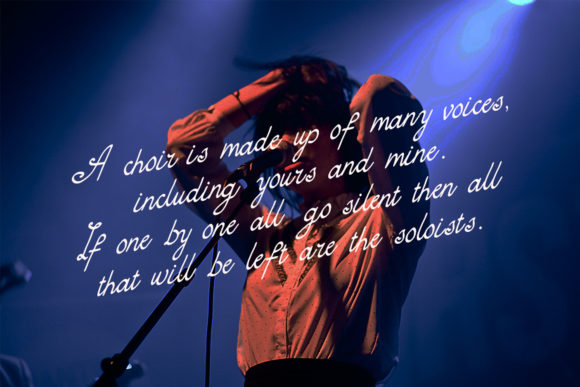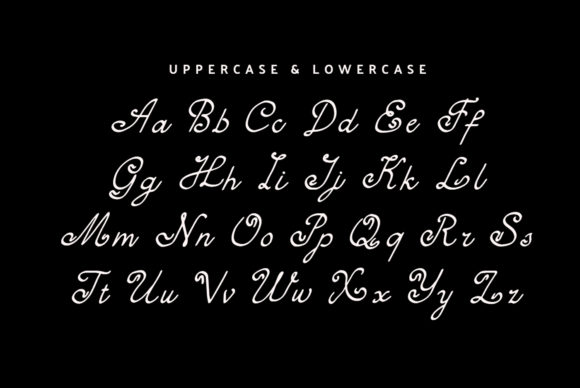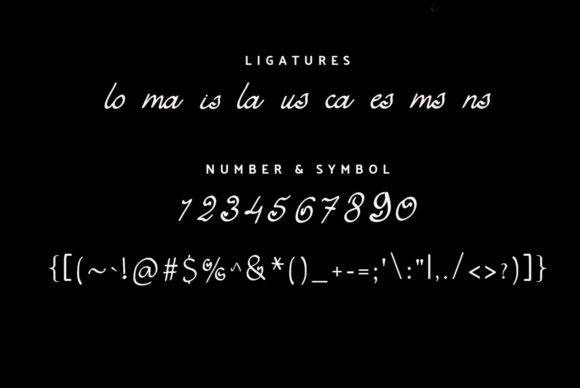
Introduction to Mounlee Font
Have you ever stared at a blank canvas, waiting for that elusive spark of creativity to strike? For designers, moments like these can be the most thrilling – and frustrating. But what if you had the perfect tool to bring your ideas to life? Enter the Mounlee Font, a delicate and elegant handwritten font that’s about to become your new go-to design resource.
With its beautiful and well-balanced characters, the Mounlee Font is the perfect addition to any creative project. Whether you’re working on a high-quality logo, a free download, or a design that requires a transparent background, this font is sure to elevate your work and make it truly shine.
As a valuable resource for designers, the Mounlee Font offers a level of sophistication and elegance that’s hard to find in other fonts. Its flowing lines and delicate curves make it the perfect choice for designers looking to add a touch of class to their work.
Key Features of Mounlee Font
- High-quality design for creative projects, suitable for use in various mediums.
- Unique, hand-drawn style that adds a touch of elegance to any design project.
- Perfect for use in digital design, including logos, branding, and graphics, as well as print materials like posters and flyers.
Honest Review: Mounlee Font
I recently had the chance to try out the Mounlee Font, a free download that’s quickly become a go-to design resource for me. The high quality and versatility of this font make it an ideal choice for any creative project.
- What works well: ✨ The Mounlee Font is incredibly easy to use, with a transparent background that makes it simple to overlay on top of images and other design elements. The font’s modern, sleek design also makes it perfect for a wide range of creative projects, from logos to typography-based designs.
- What works well: ✨ I’ve also been impressed with the font’s flexibility – it’s available in a range of weights and styles, making it easy to customize to suit your needs.
Of course, no font is perfect, and the Mounlee Font has a few limitations that are worth noting.
- Limitations: ⚠️ One potential issue is that the font’s design can feel a bit generic at times – it’s not necessarily a unique or innovative choice, which may limit its appeal for more experimental or avant-garde projects.
Overall, I’m really impressed with the Mounlee Font – it’s a high-quality design resource that’s perfect for a wide range of creative projects. With its easy-to-use design and flexible customization options, it’s definitely worth checking out.
The Mounlee Font is ideal for use in various creative projects, such as logo design, branding materials, and infographics. Its unique design and transparent background make it a versatile design resource that can be used in a range of applications.